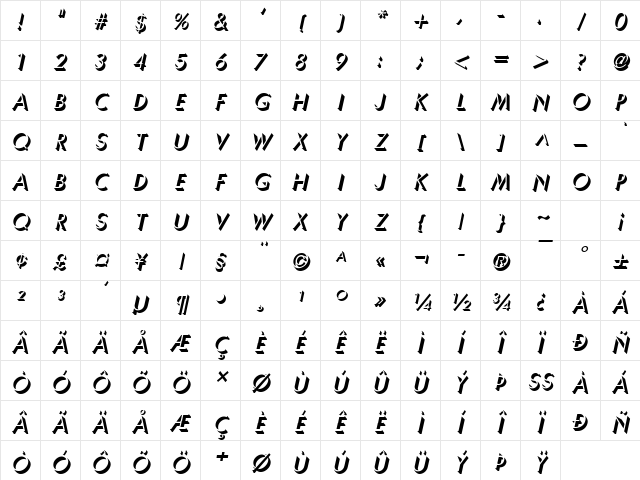
Umber Italic
Design Context for Umber
Umber is a composed and adaptable typeface that performs quietly and consistently across a wide range of design contexts. The slanted form adds forward momentum and visual energy.
Pro Tip: Use Umber for emphasis, pull quotes, and subheadings where its slanted energy can add rhythm to the layout.